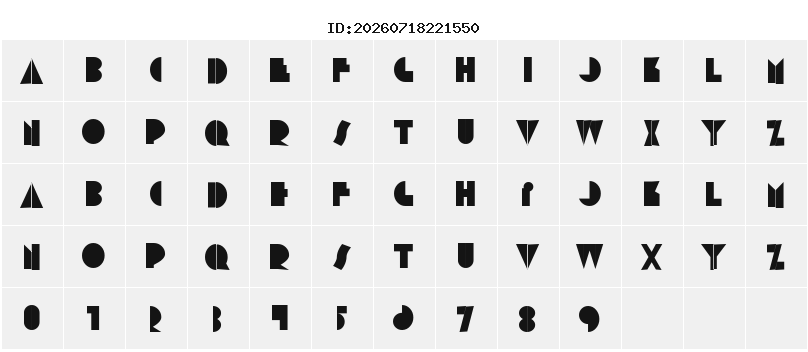
About Cortesia.ttf
Cortesia.ttf is a modern, elegant sans-serif font designed for ultimate readability and visual harmony. Perfect for branding, headlines, web design, and print materials.